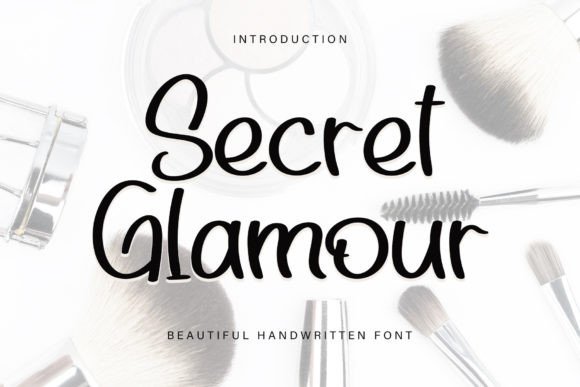
Step into a world of elegance and charm with Secret Glamour Font, a captivating and graceful script font that will add a touch of sophistication to your designs. This exquisitely crafted font exudes beauty and refinement, and is perfect for those seeking to create designs that truly stand out.
With its delicate curves and flowing lines, Secret Glamour Font effortlessly captures the essence of romance and femininity. Its unique style is sure to add a touch of charm and elegance to any project, whether it's a wedding invitation, a handwritten letter, or a stylish logo. Let your words dance with grace and poise as they take on a new depth of expression with Secret Glamour Font.
Unleash your creativity and let your designs flourish with Secret Glamour Font. Its versatility makes it a perfect choice for a wide range of projects, from elegant invitations to chic branding materials. Let the beauty of this font captivate your audience and leave a lasting impression.